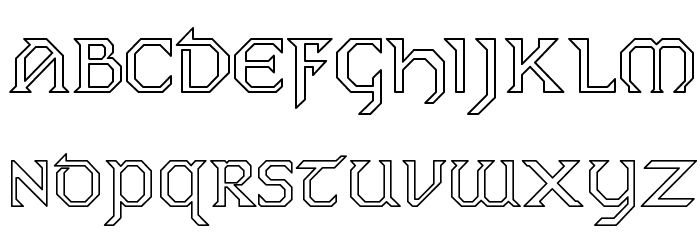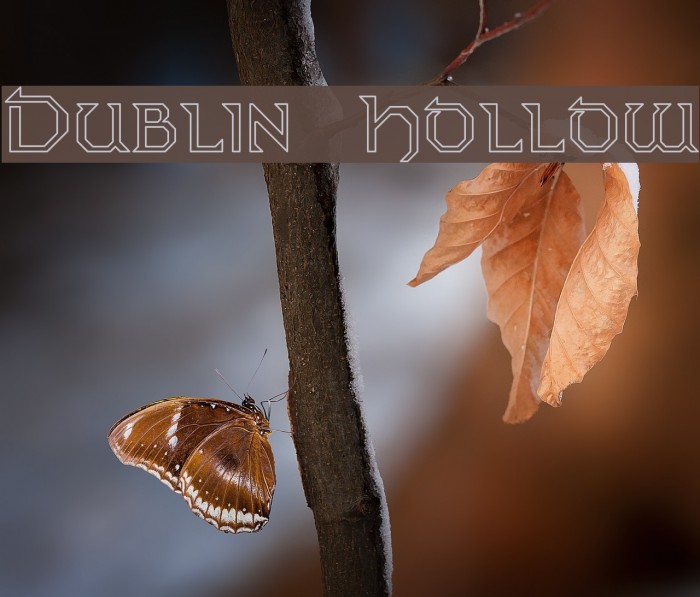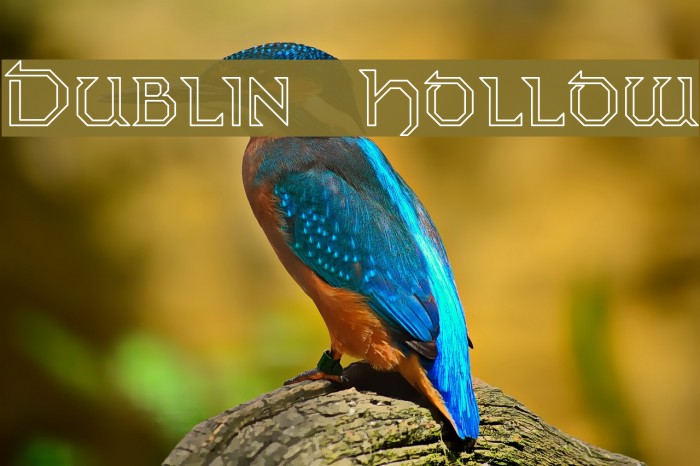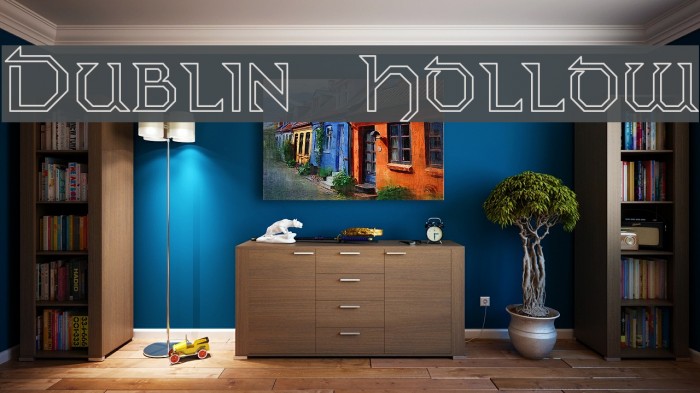
Dublin Hollow Font
This font features a unique, hollow design with geometric and angular elements, giving it a futuristic and edgy appearance. The characters are outlined, creating a sense of depth and dimension, while maintaining a clean and structured look. The uppercase and lowercase letters share a consistent style, with sharp angles and straight lines dominating the design. Numbers and special characters are crafted with the same attention to detail, ensuring a cohesive visual experience across all elements. This font's distinct style makes it stand out, offering a bold statement in any design project.
A geometric, hollow font with angular and futuristic elements.
- Proposed Projects: Ideal for sci-fi themed designs, modern branding, posters, and digital artwork.